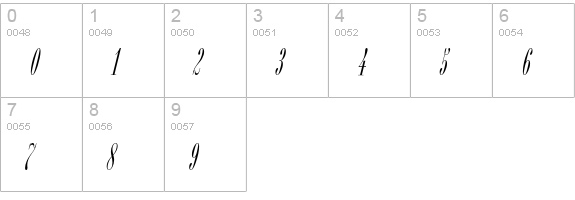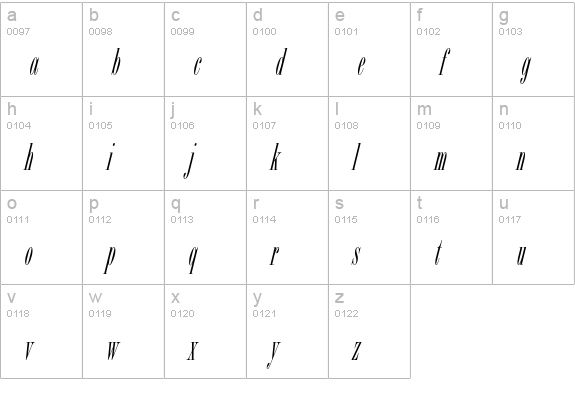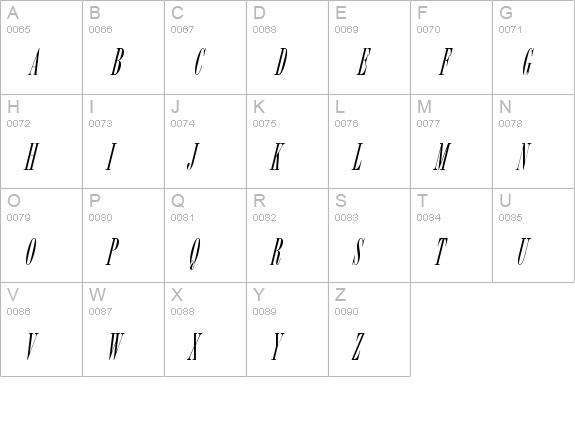
BordeauxICG-Italic Font Details
BordeauxICG-Italic is a distinctive, italic variant in the BordeauxICG typeface family \xE2\x80\x94 well suited to design and typography projects.
Introducing BordeauxICG-Italic font, a sleek and sophisticated typeface designed to elevate your design projects to new heights. This elegant italic font exudes class and refinement, making it perfect for luxury branding, editorial design, and more. With its graceful curves and stylish flair, BordeauxICG-Italic adds a touch of elegance to any project. The best part? BordeauxICG-Italic font is available for free download at FontsMarket.com. This means you can easily access this premium font without breaking the bank. Whether you're working on a high-end fashion campaign or a chic wedding invitation, BordeauxICG-Italic font is sure to impress. Don't miss out on this opportunity to enhance your designs with BordeauxICG-Italic font. Download it for free today and see the difference it can make in your projects. Elevate your typography game with BordeauxICG-Italic font and make a lasting impression with every design you create.